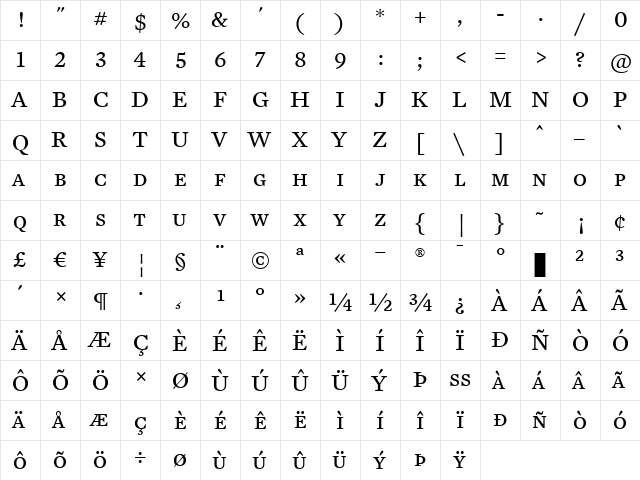
Mercury Text G3 Regular
Design Context for Mercury Text G3 Typeface
Mercury Text G3 offers clean, dependable letterforms without strong stylistic allegiance, making it a practical choice for designers who need flexibility.
Pro Tip: Use Mercury Text G3 in both headline and body roles to test its range before committing to a single application.